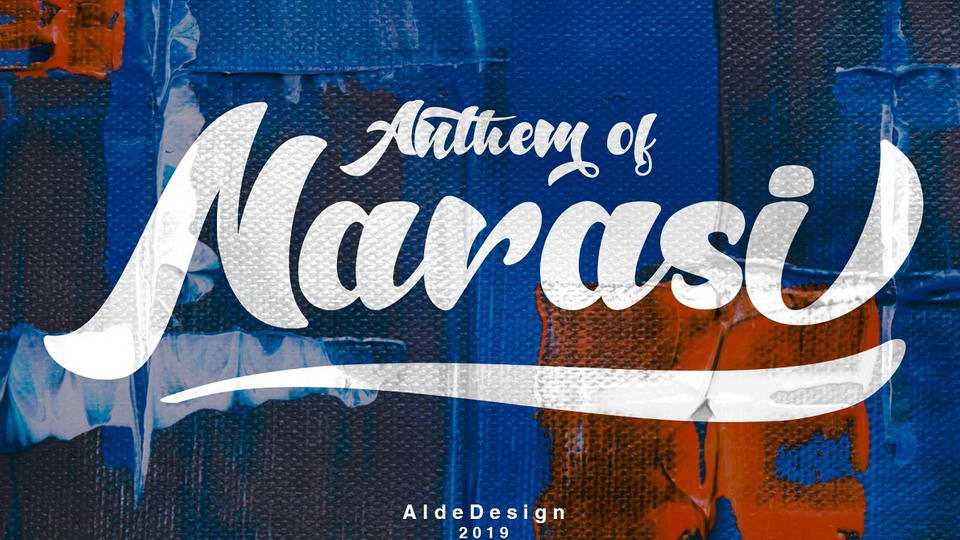
Download Anthem of Narasi font, a stylish and quirky bold script. Anthem of Narasi was created to look as close to a readable script as possible by including over a lot ligatures, titling, and swash.
Designer: Alde Design